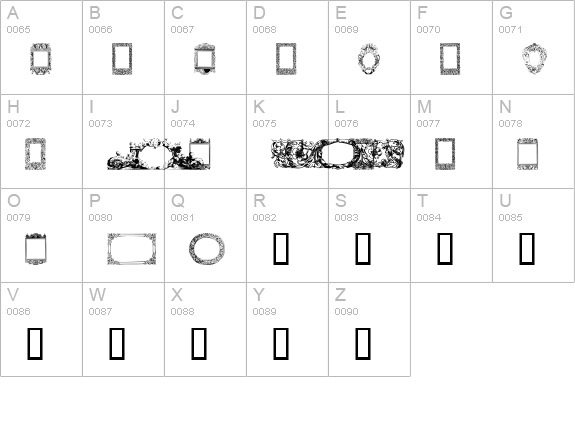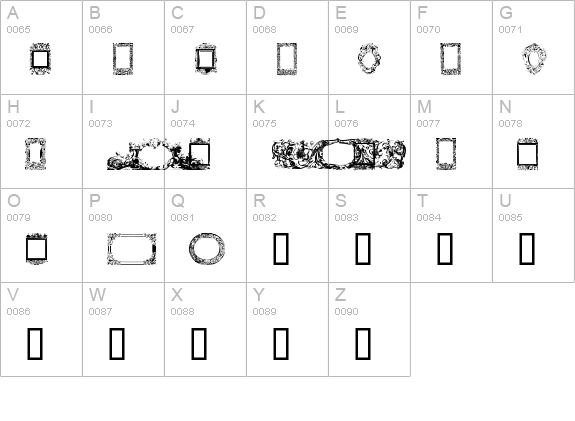
Decorative Ornamental Font Details
The Decorative Ornamental font is a stunning and intricate typeface that is perfect for adding a touch of elegance and sophistication to your designs. This ornate font features delicate swirls, intricate patterns, and decorative elements that will truly make your text stand out. Whether you're working on a wedding invitation, a special event flyer, or a branding project, this font is sure to make a statement. The best part? The Decorative Ornamental font is available for free download at FontsMarket.com. Simply head over to the website and add this beautiful font to your collection without any cost. With its unique and eye-catching design, the Decorative Ornamental font is a must-have for anyone looking to add a touch of luxury to their projects. Download it today and take your designs to the next level!